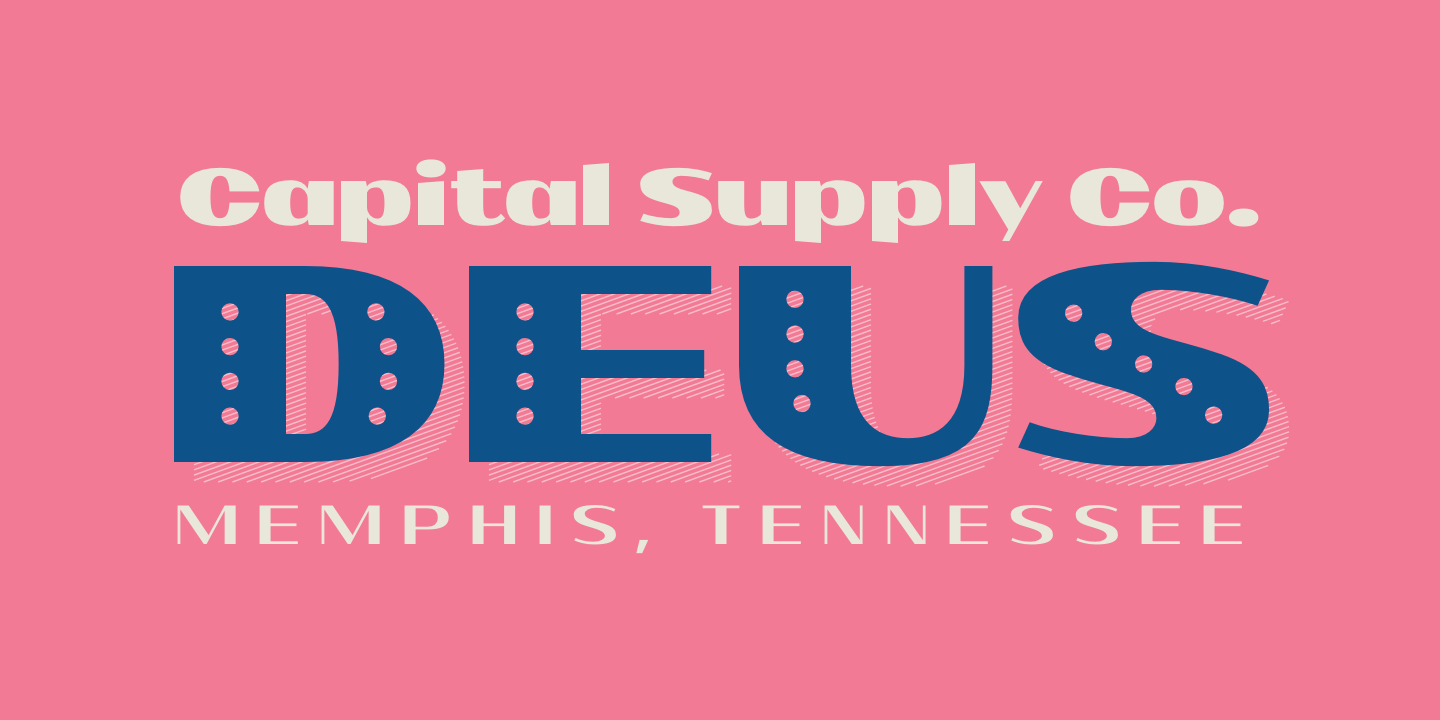
Hoodie Font is perfect for streetwear clothing brands, casual apparel companies, youth culture magazines, urban lifestyle blogs, skateboard graphics, hip-hop music venues, relaxed café signage, college campus stores, comfort clothing labels, and authentic casual lifestyle designs.
Hoodie Font is exciting because it wraps around with comfortable authenticity and laid-back charm through relaxed letterforms that capture the cozy comfort of hoodie culture and the effortless cool of casual streetwear style, making it perfect for brands celebrating comfort, authenticity, and relaxed urban lifestyle.
The Hoodie Font family includes regular and bold weights with casual alternates, streetwear-inspired ornaments, and comfortable decorative elements, providing designers with cozy tools for creating typography that feels as comfortable and authentic as your favorite hoodie.
When your project needs casual authenticity and comfortable urban appeal, Hoodie Font Free Download provides the perfect typographic comfort for relaxed communications. This laid-back display typeface combines streetwear culture with contemporary functionality, ensuring your brands resonate with audiences seeking genuine comfort and authentic casual style. The relaxed letterforms and hoodie-inspired styling make this font an essential choice for casual brands, youth-oriented companies, and any application where comfort culture, casual authenticity, and relaxed urban lifestyle are crucial for establishing credibility and connecting with communities that value the simple pleasure of comfortable clothing and the effortless confidence that comes from authentic casual style that prioritizes comfort over pretension and genuine self-expression over formal expectations.